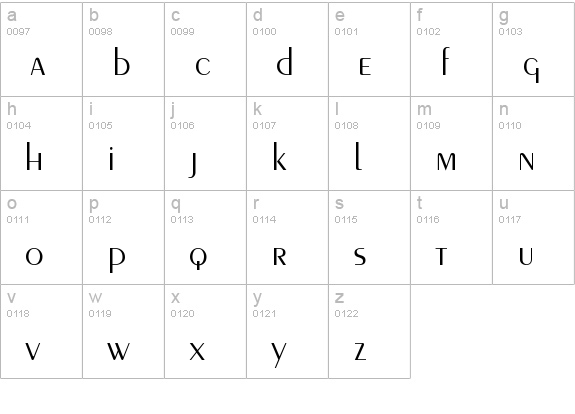
PenguinLight:001.003 Font Details
Introducing PenguinLight:001.003 font, a captivating typeface that exudes elegance and versatility. With its sleek and refined design, this font adds a touch of sophistication to any project it graces. PenguinLight:001.003 font is the perfect choice for those seeking a modern yet timeless font that effortlessly captures attention. Its clean and legible letterforms make it ideal for various design purposes, including branding, advertising, editorial layouts, and more. One of the most impressive aspects of PenguinLight:001.003 font is that it is freely available to download at FontsMarket.com. This means that you can enhance your creative endeavors without any additional cost. Whether you are a professional designer or someone exploring the world of typography, this font offers a fantastic opportunity to elevate your work without breaking the bank. Upon downloading PenguinLight:001.003 font, you will be greeted with an extensive range of characters, including uppercase and lowercase letters, numerals, punctuation marks, and symbols. This comprehensive character set ensures that you have all the tools necessary to achieve your desired aesthetic and communicate your message effectively. The versatility of PenguinLight:001.003 font truly sets it apart. Its clean and minimalistic design allows it to seamlessly integrate into various design styles, whether it be a sleek and modern website, a sophisticated print publication, or a minimalist logo. This font adapts effortlessly to any context, creating a cohesive and polished look across different mediums. Furthermore, PenguinLight:001.003 font boasts excellent readability, ensuring that your audience can easily absorb and engage with your content. Its balanced proportions and well-defined letterforms make it a pleasure to read, whether it's in a headline or body text. In conclusion, PenguinLight:001.003 font is a remarkable typeface that combines elegance, versatility, and affordability. With its freely available download at FontsMarket.com, you can elevate your design projects without any financial constraints. Make a statement with this captivating font and let your creativity shine.